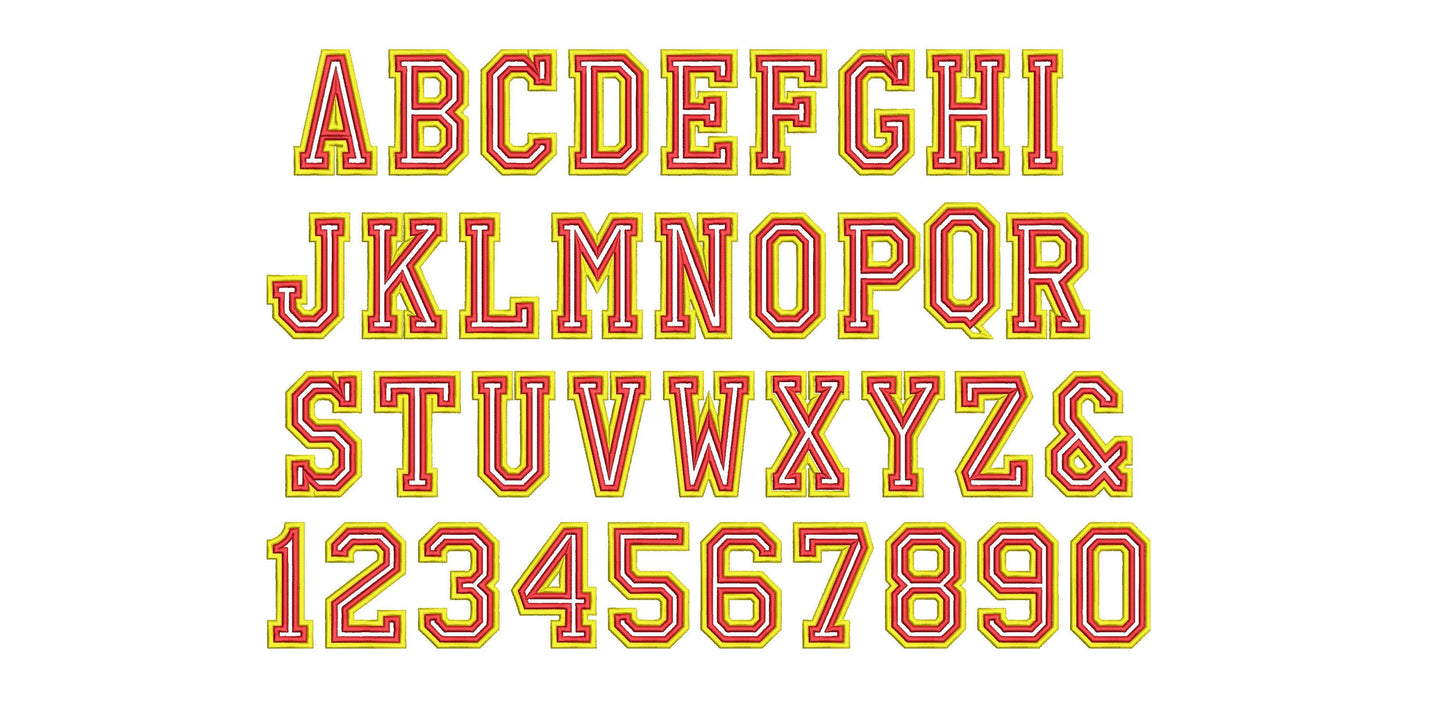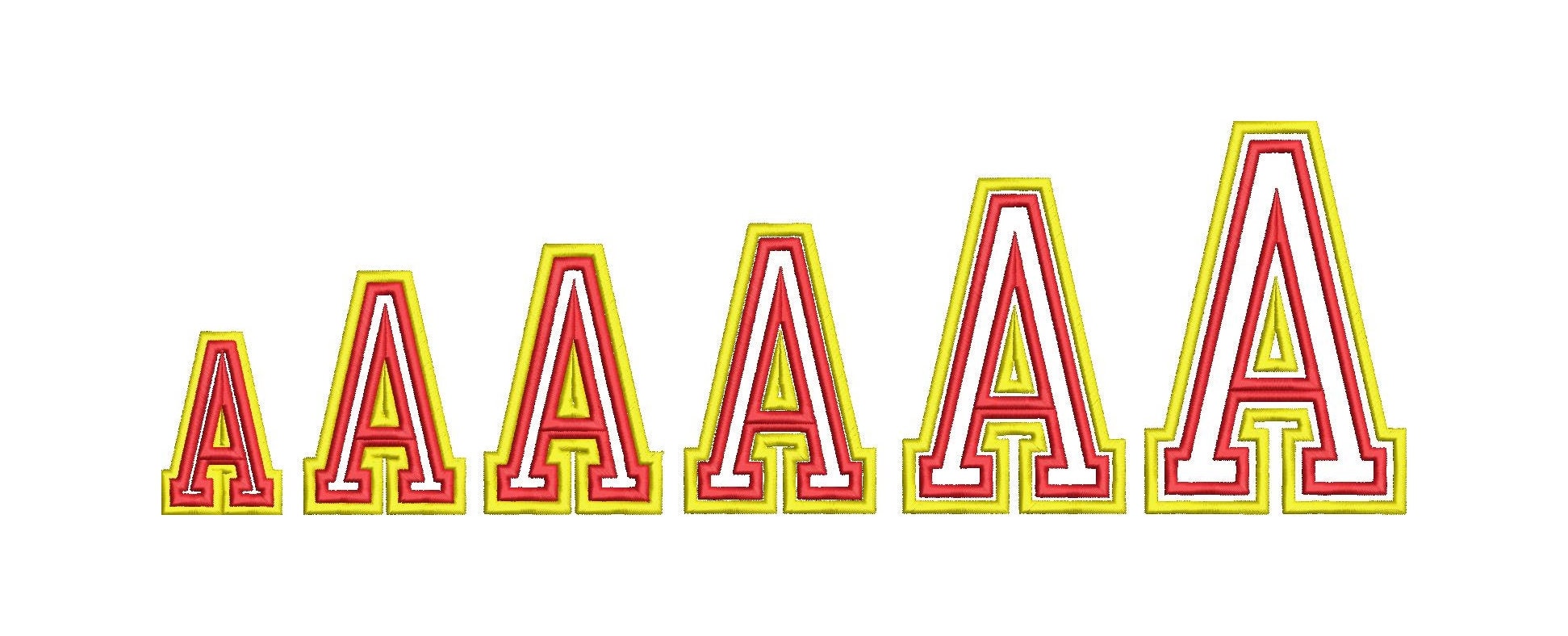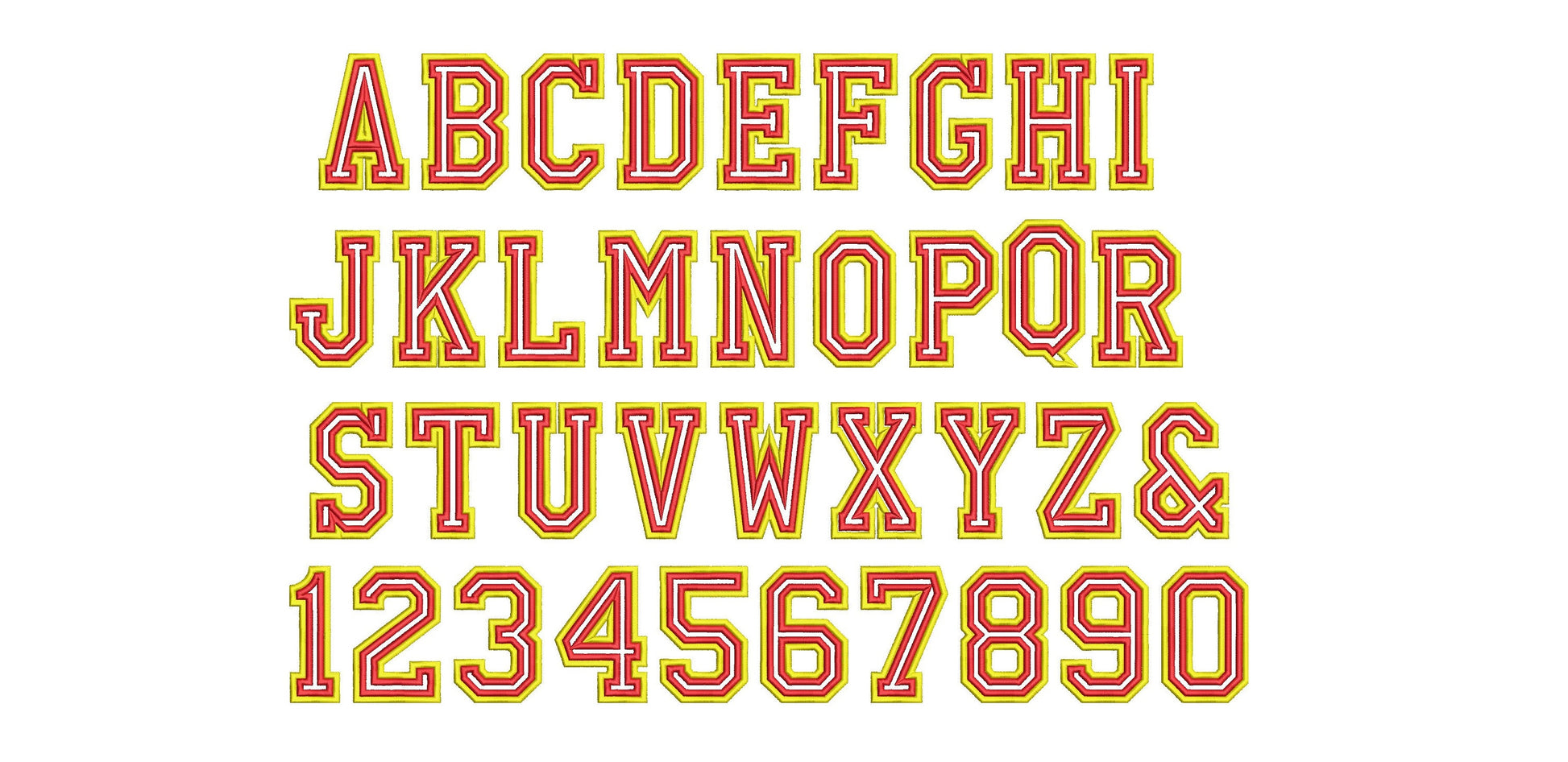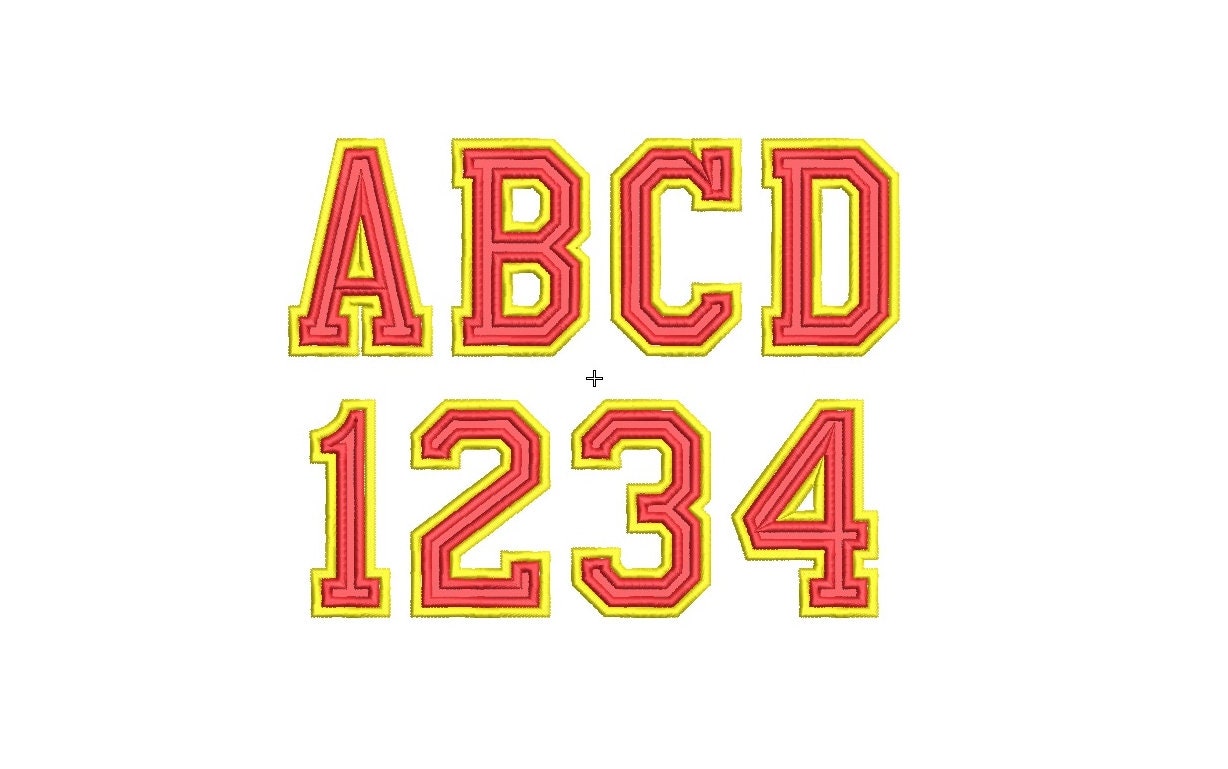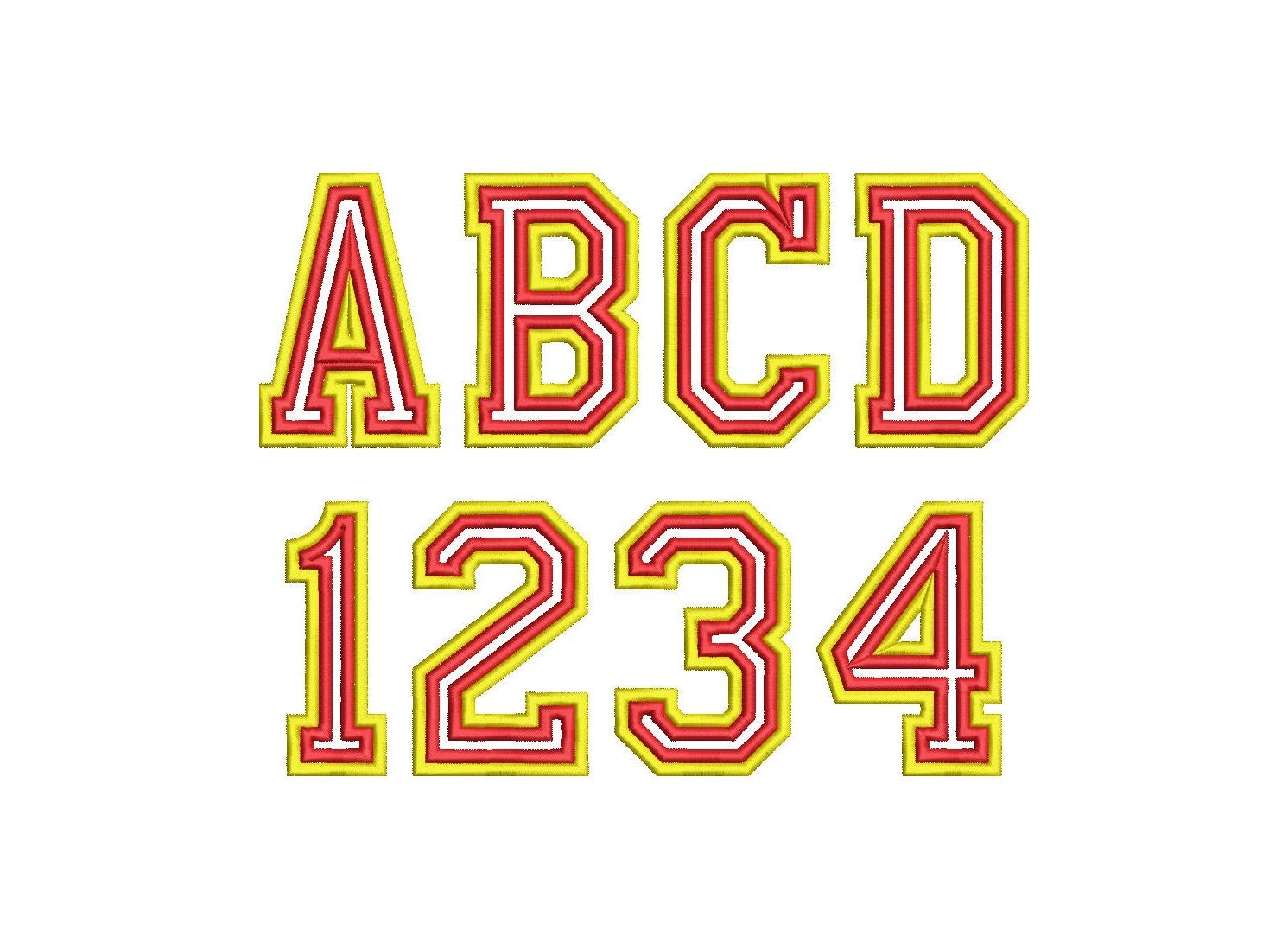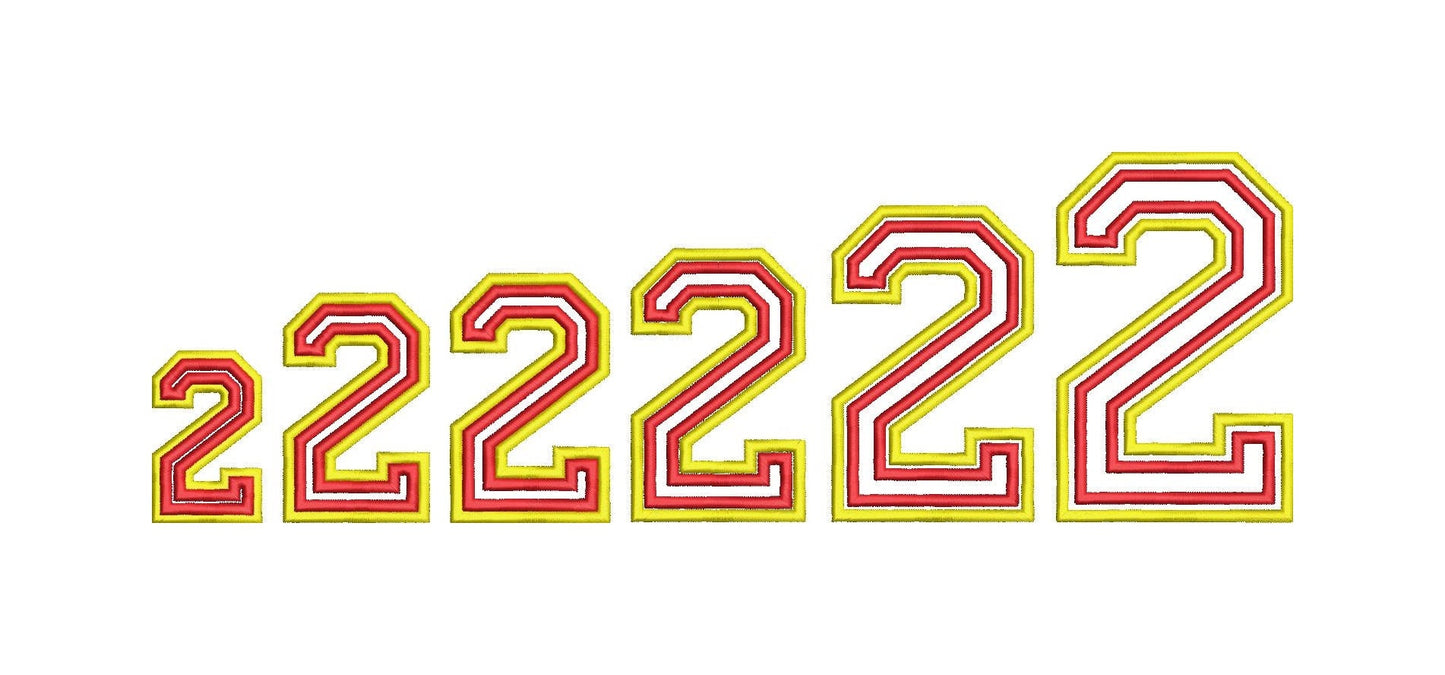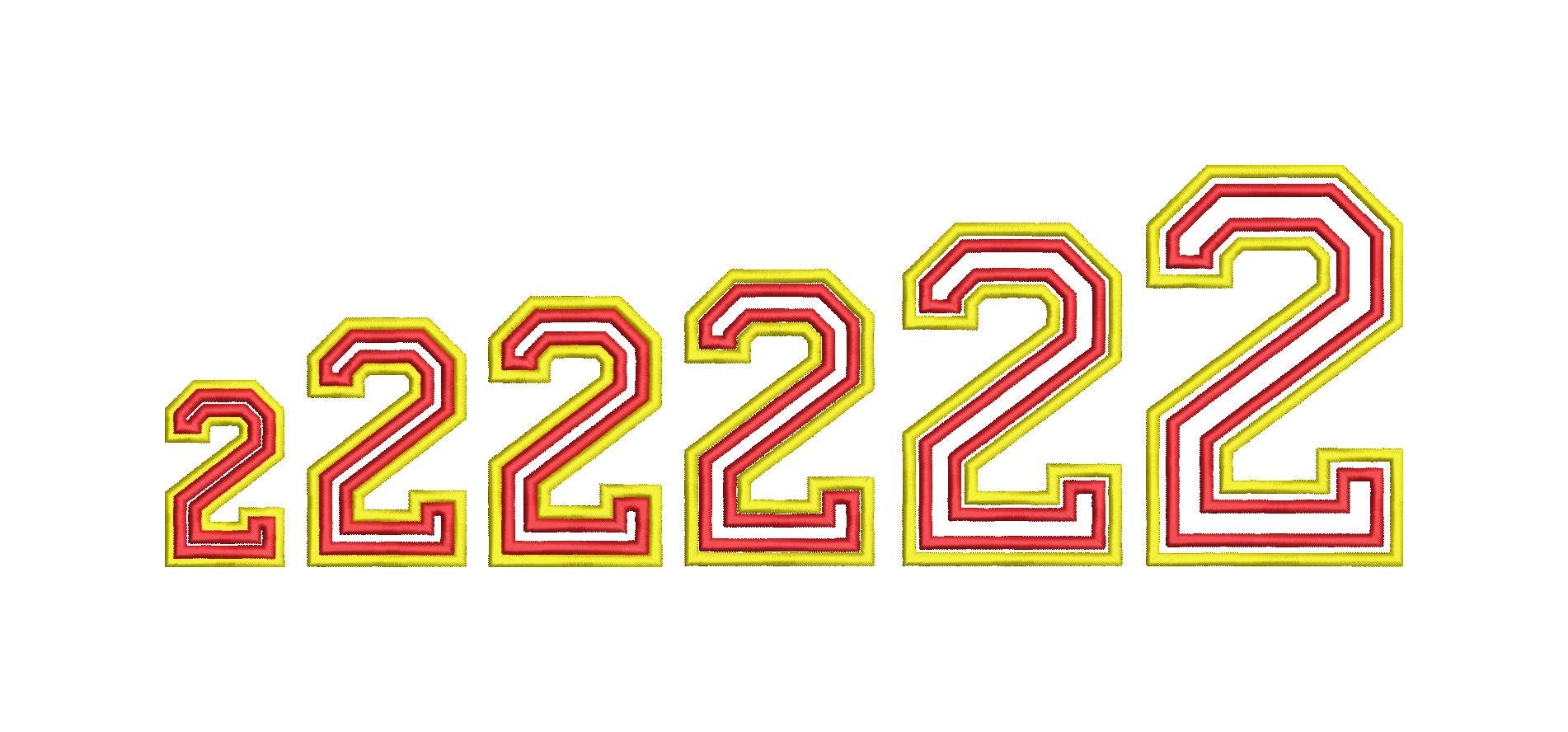
Or click to open the linkA tall, thin athletic font with a double satin outline. Made for team shirts, jerseys, school spirit wear and sports bags.
Capital letters A to Z, numbers 0 to 9 and an ampersand, in six sizes: 2.5, 3, 3.5, 4, 4.5 and 5 inches. Each letter has a nice double outline in satin stitch.